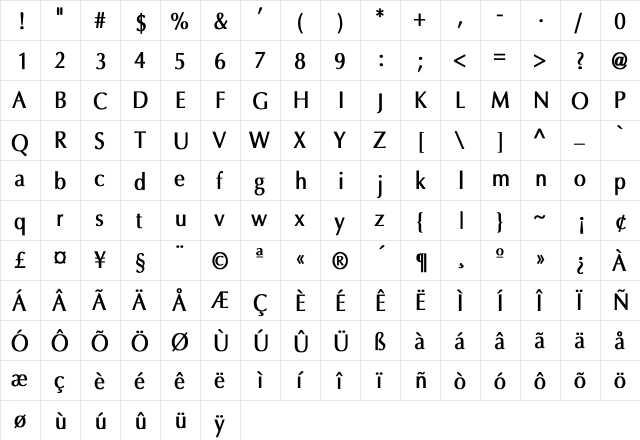
Optima Bold Th Bold Bold
Design Context for Optima Bold Th Bold Typeface
Optima Bold Th Bold takes a measured approach to typography — its balanced proportions and neutral character make it a reliable workhorse for both digital and print work. Its bold stroke weight gives it real presence on the page.